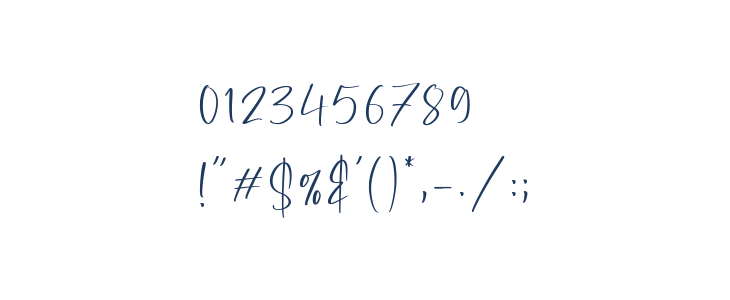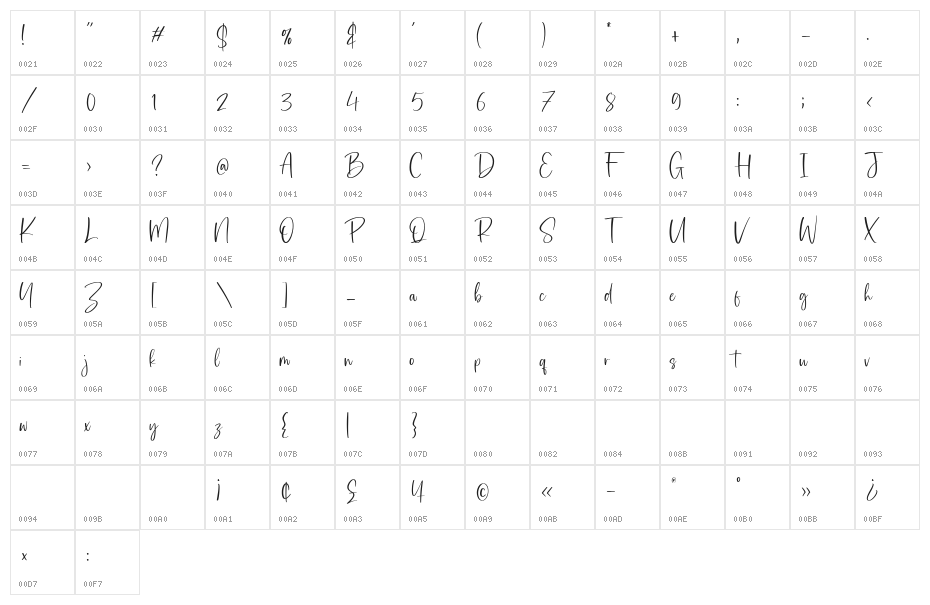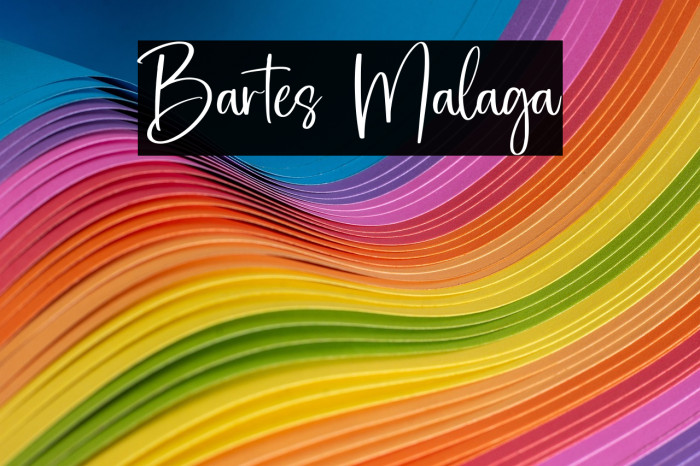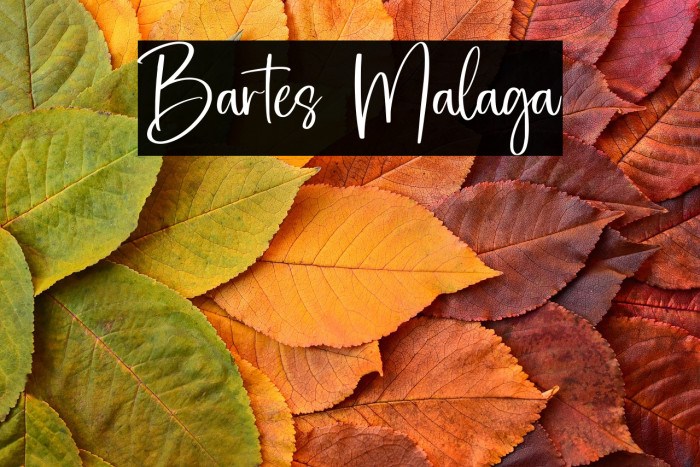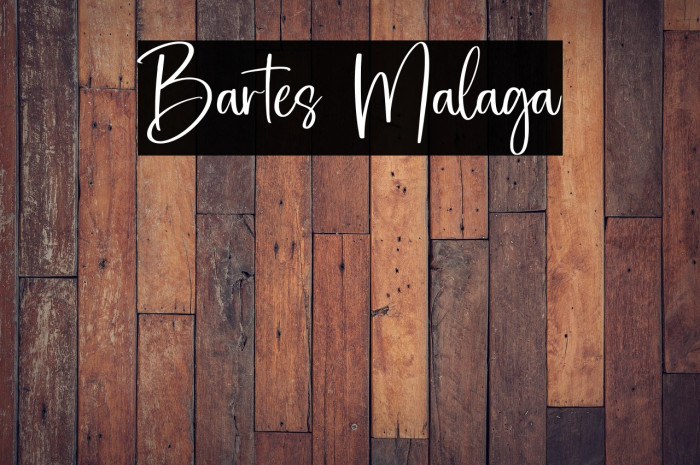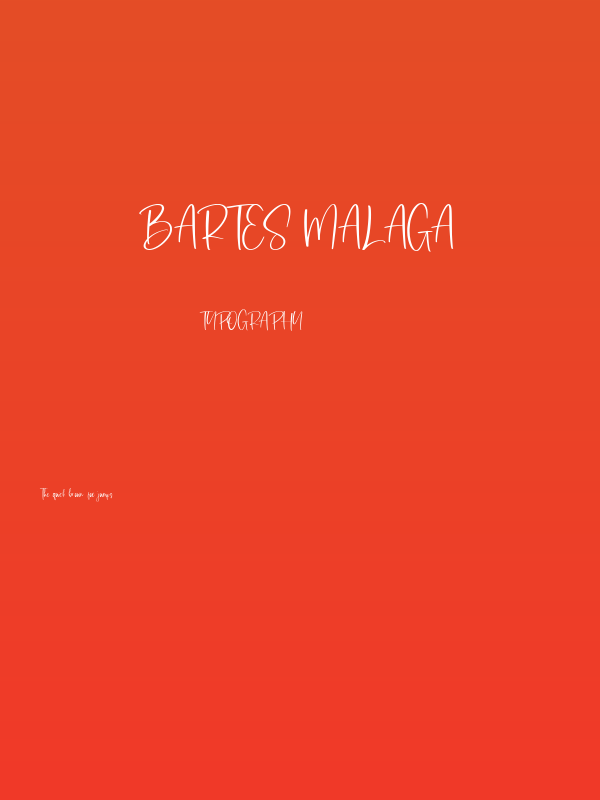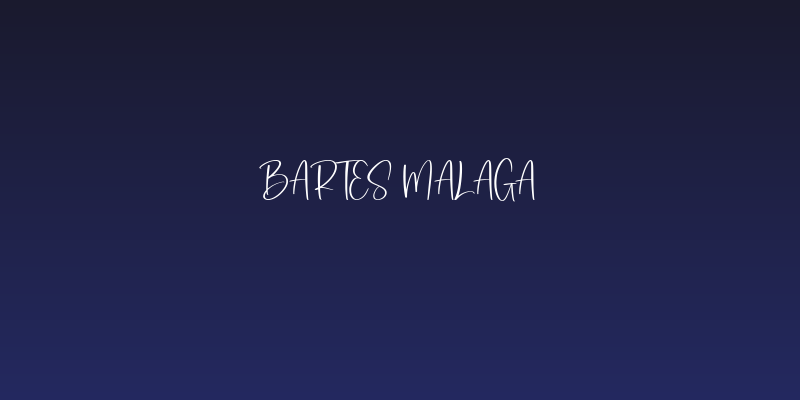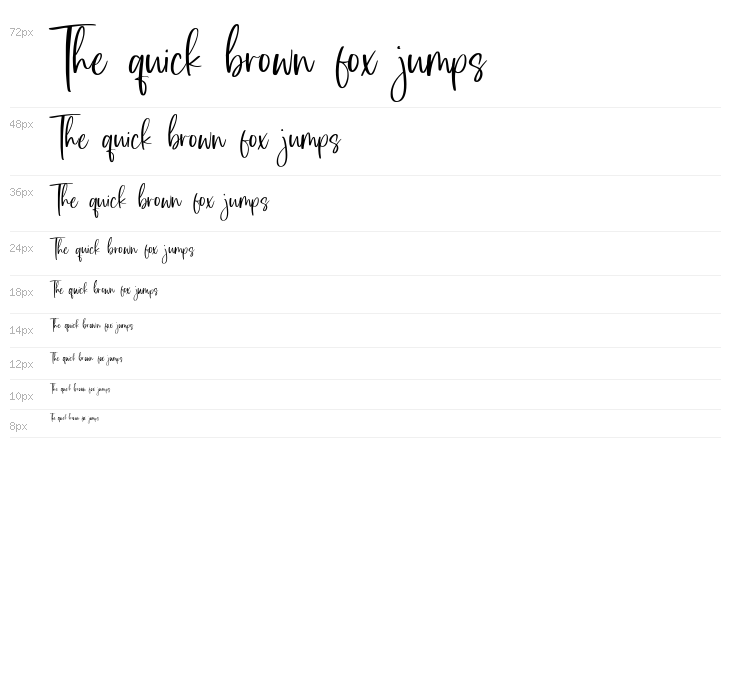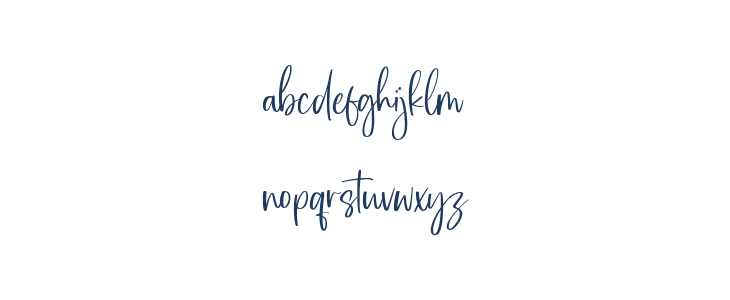
Bartes Malaga Font
Bartes Malaga Description
This font exhibits a lively and expressive handwritten style, characterized by its fluid and dynamic strokes. The uppercase letters are tall and slightly narrow, with a playful yet elegant flair. The lowercase letters maintain a consistent flow, enhancing the font's overall cohesiveness. The numerals are well-integrated, matching the font's energetic style. Special characters are thoughtfully designed, adding versatility to the font's use. The strokes vary in thickness, providing a medium contrast that adds depth and interest. This font is perfect for projects that require a personal touch, such as invitations, greeting cards, or branding materials.